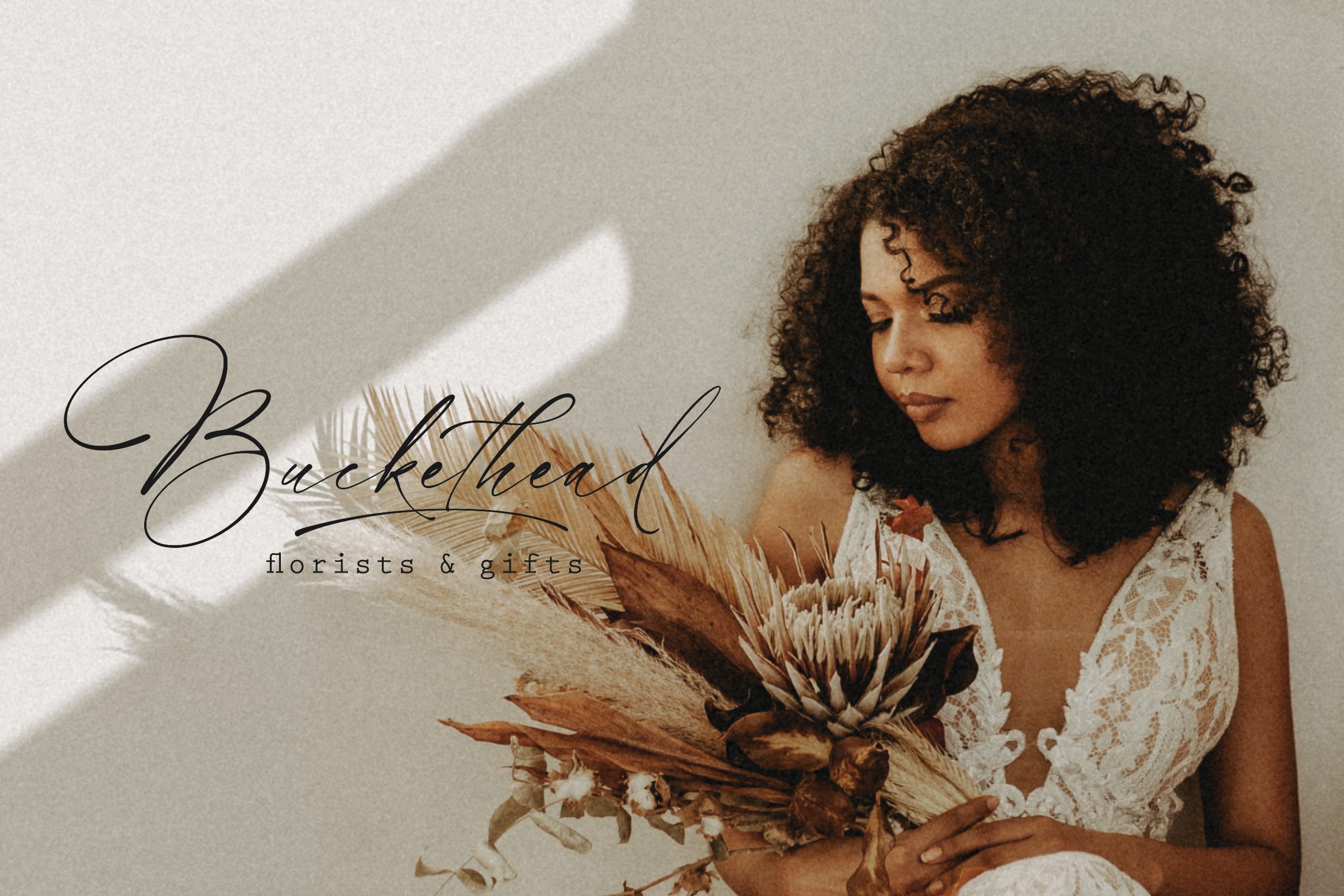
Hathaway Script Font
This is a modern and stylish handwritten font. With natural flow it can add a human touch to your designs.
Hathaway is perfect for many design needs such as merch, T-shirts, titles, wedding, book covers, social media posts, websites, events, and many more.